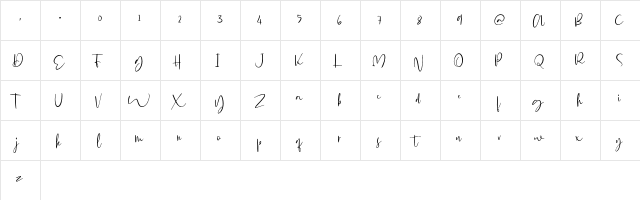
Glorial Regular
| Foundry | Runsell Studio |
| Designer | Satia Hayu P |
Design Context for Glorial Typeface
Glorial is a composed and adaptable typeface that performs quietly and consistently across a wide range of design contexts.